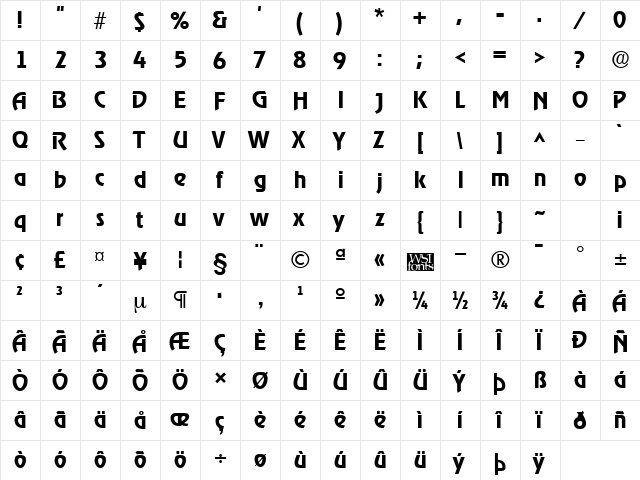
RevelMedium Regular
Design Context for RevelMedium Typeface
RevelMedium is a composed and adaptable typeface that performs quietly and consistently across a wide range of design contexts.